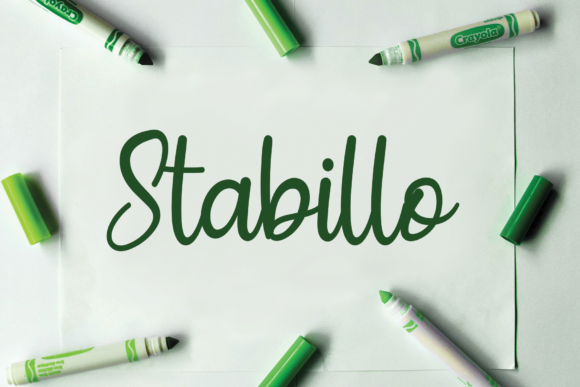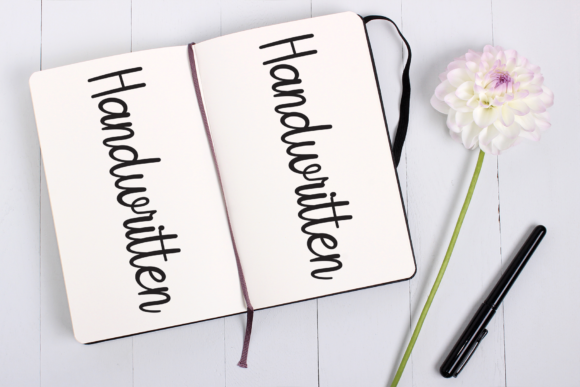
Angel Font
db-ku.com - Script & Handwritten -- This is a sweet and modern handwritten font. It features beautiful curves in each letter. This font is PUA coded, which means you can access all the glyphs and sweeps easily!